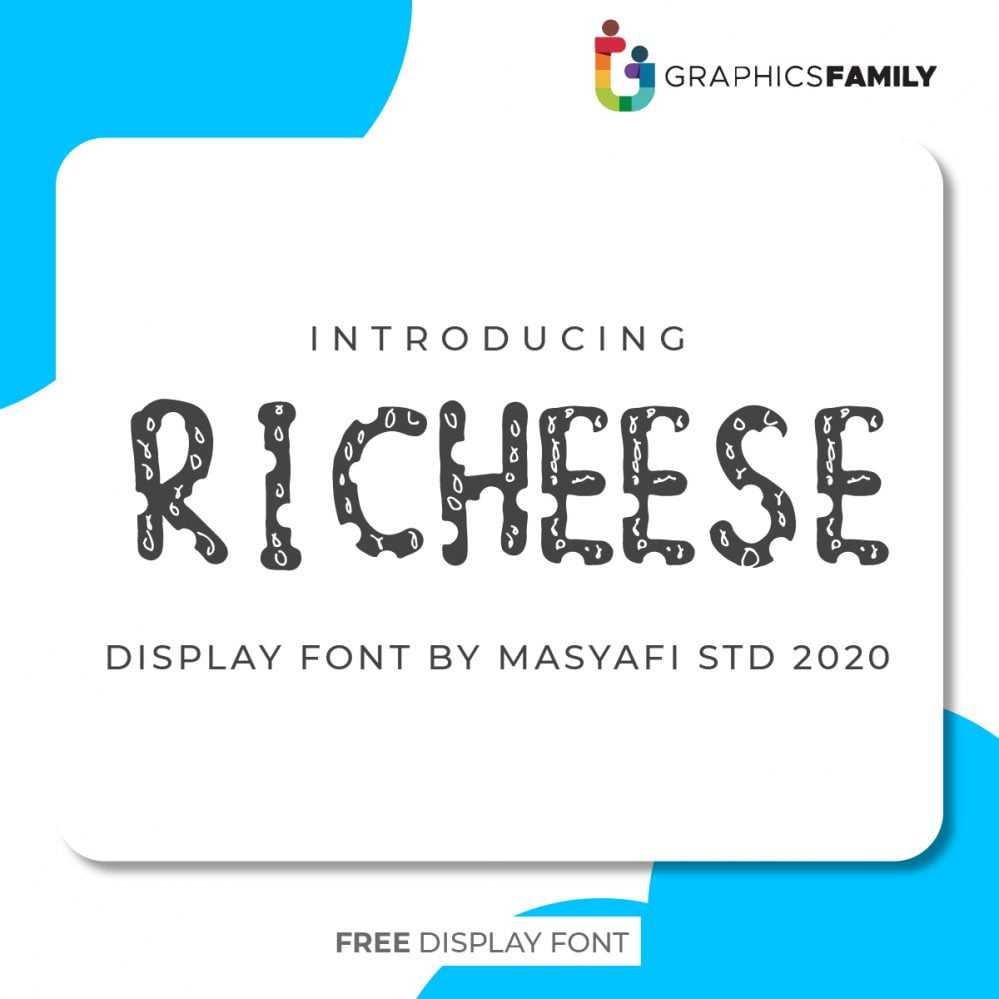
Richeese Font Richeese is an incredibly unique and original display font. Fall in love with its quirky and versatile style and use it to create cute designs! Enjoy!